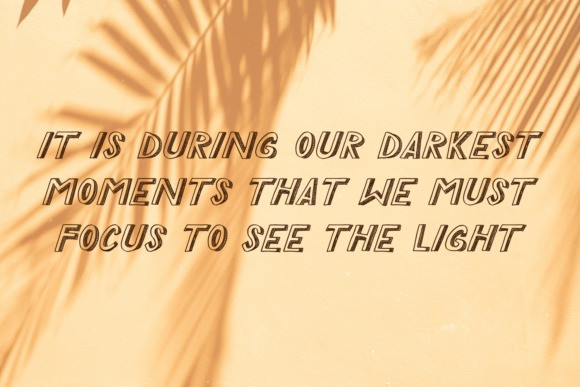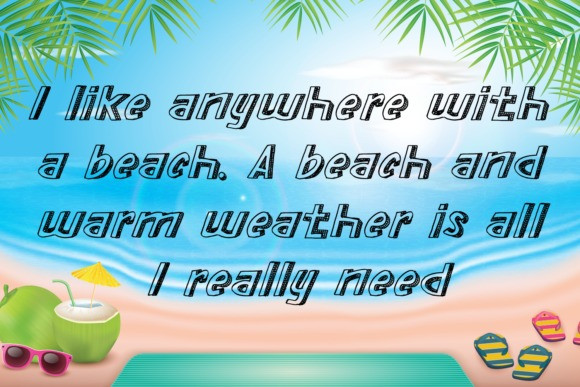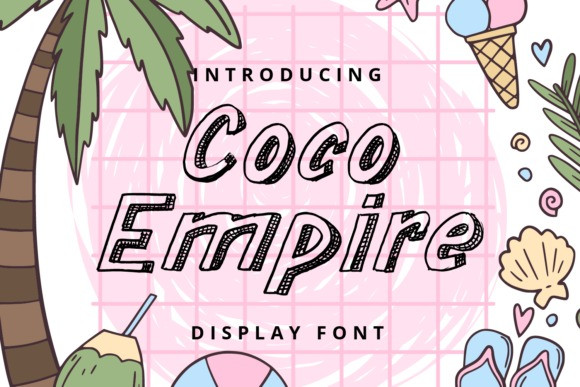
Coco Empire Font
Coco Empire Display Font is a casual and cool 3D display font. Its natural and unique style makes it incredibly fitting to a large pool of designs. Have fun with this beautiful font and explore its endless variations.